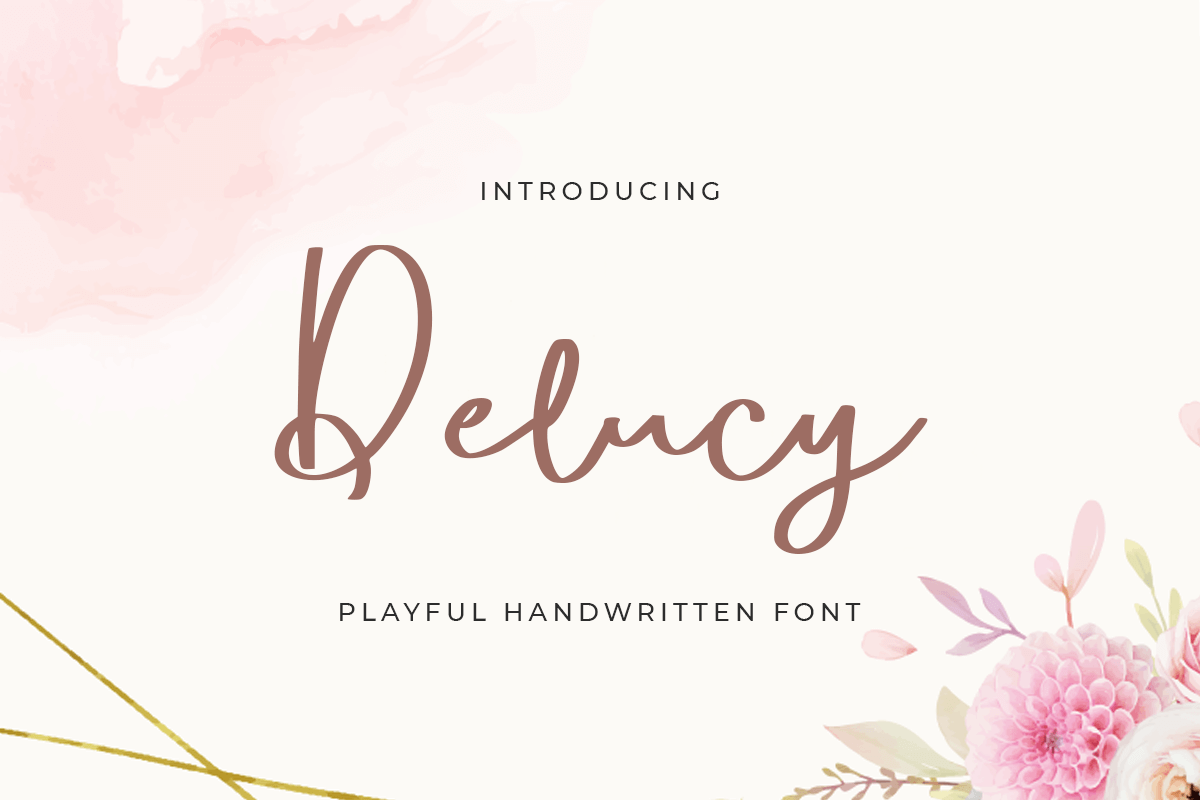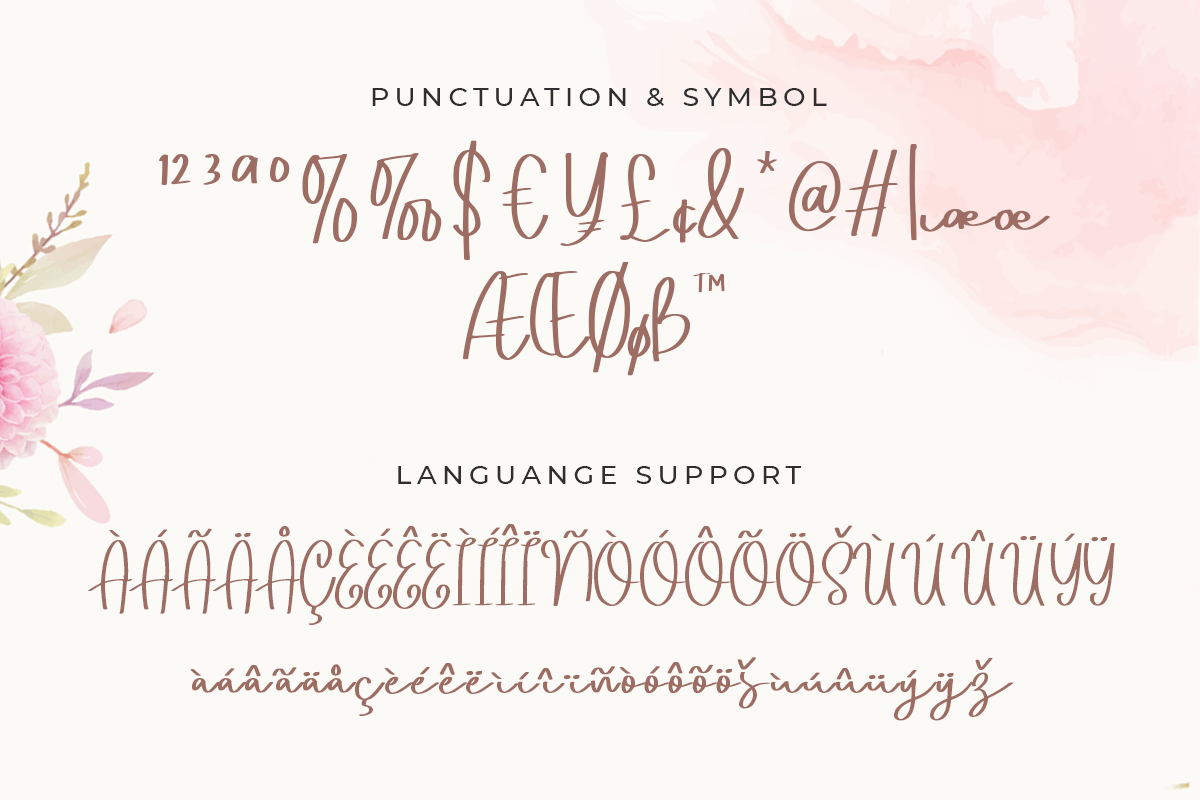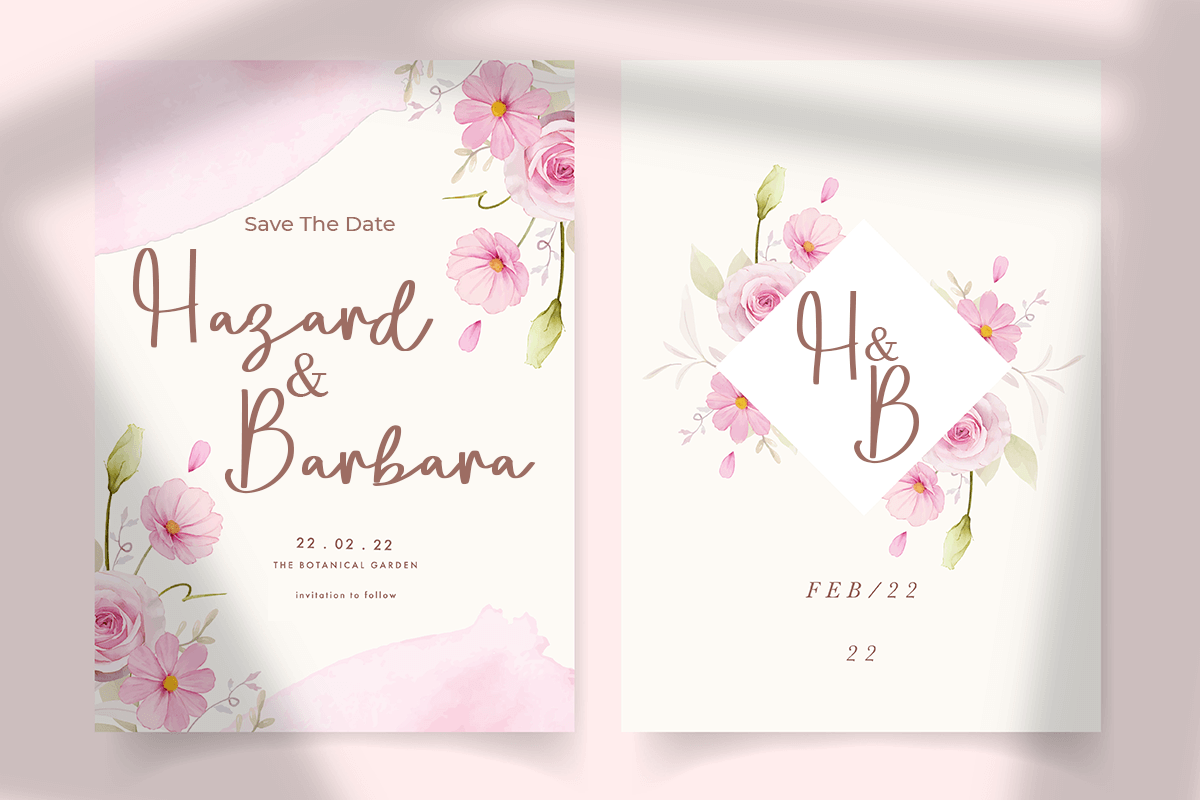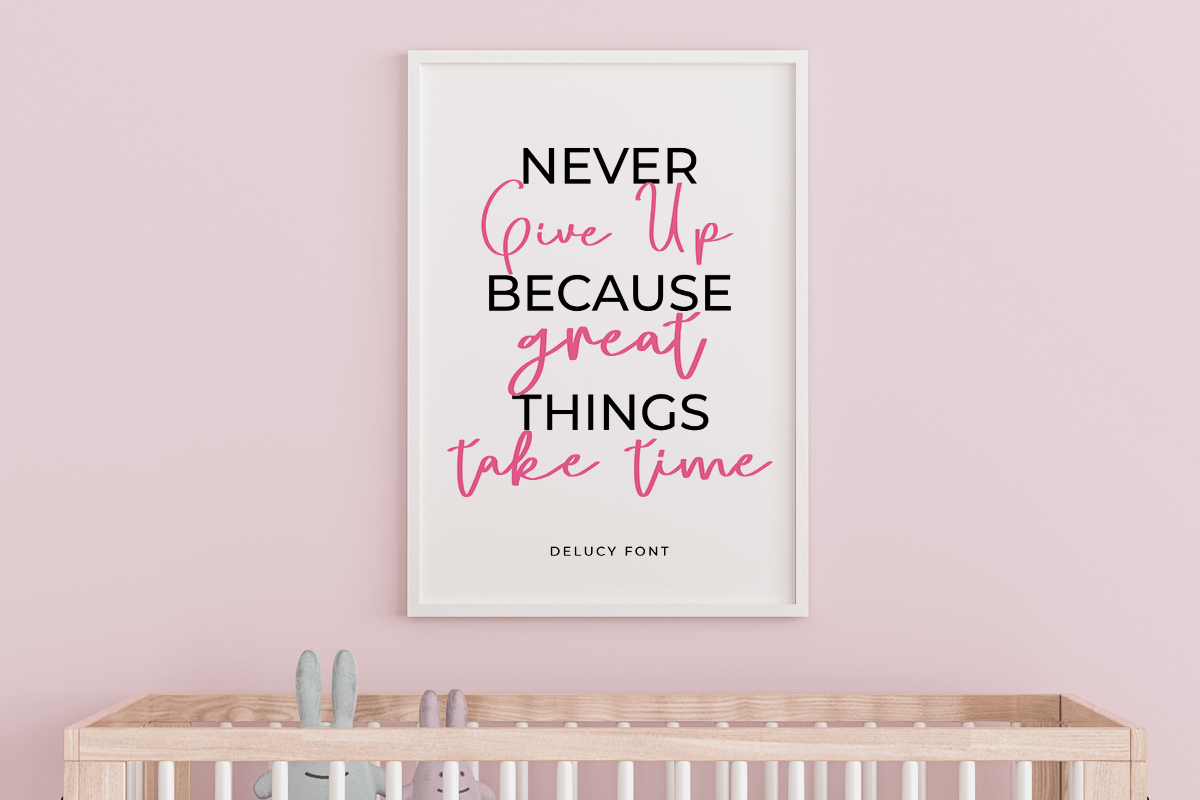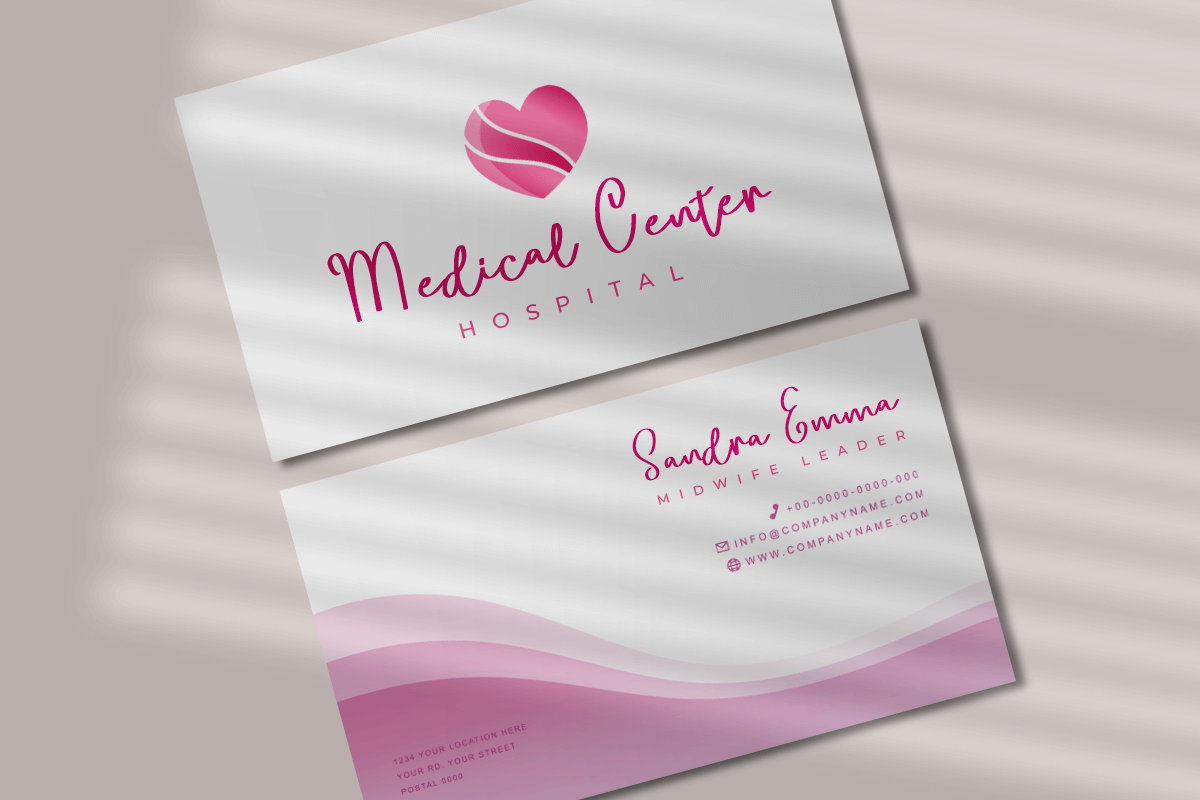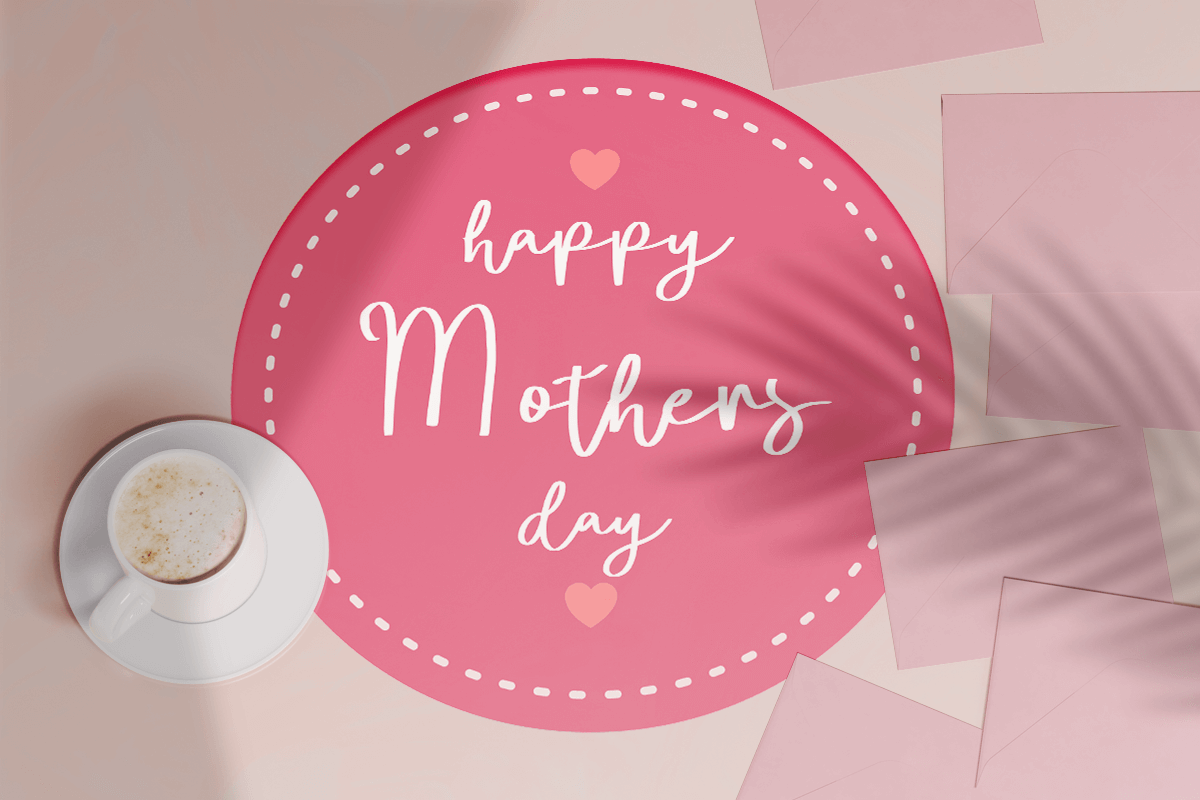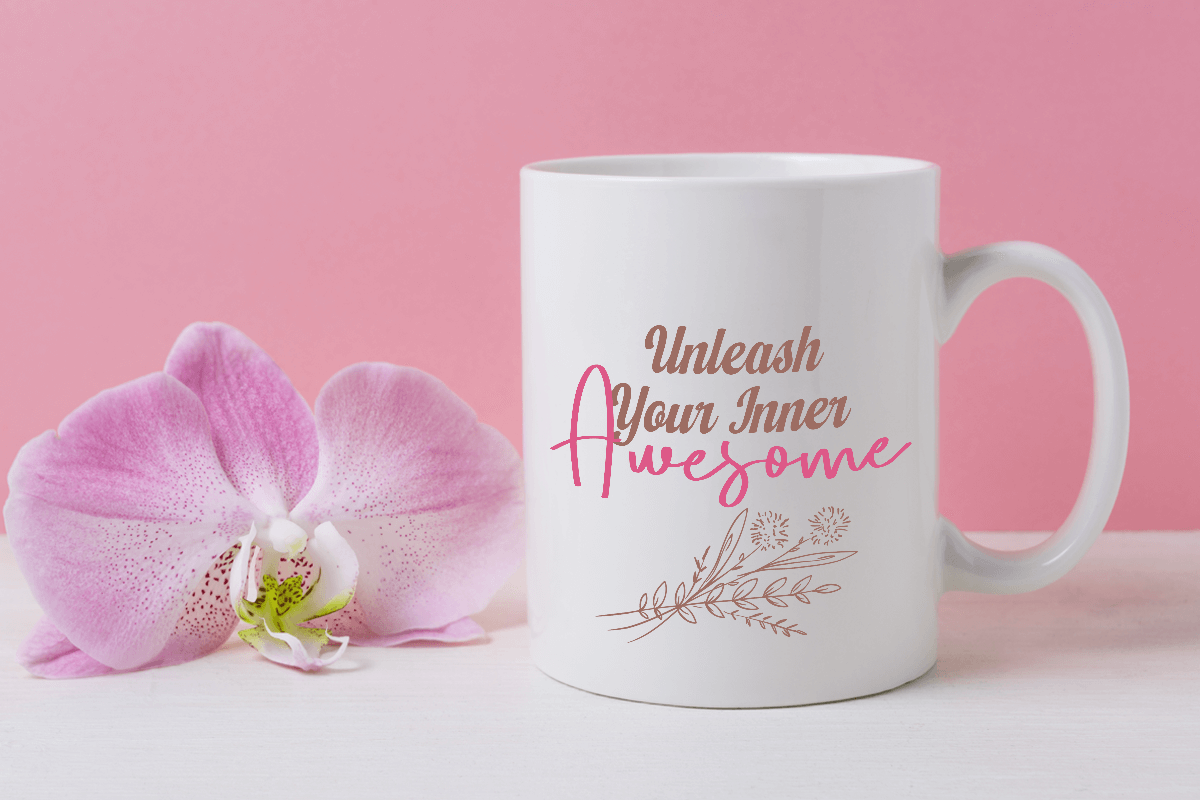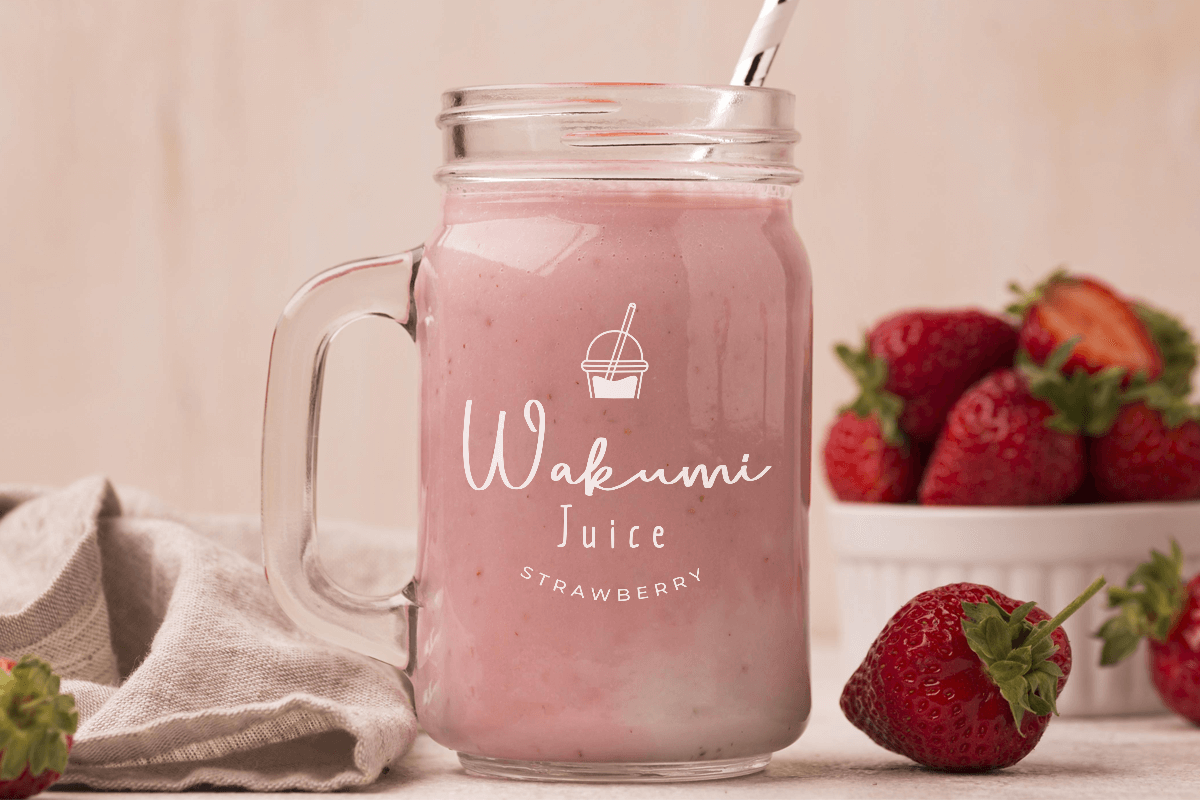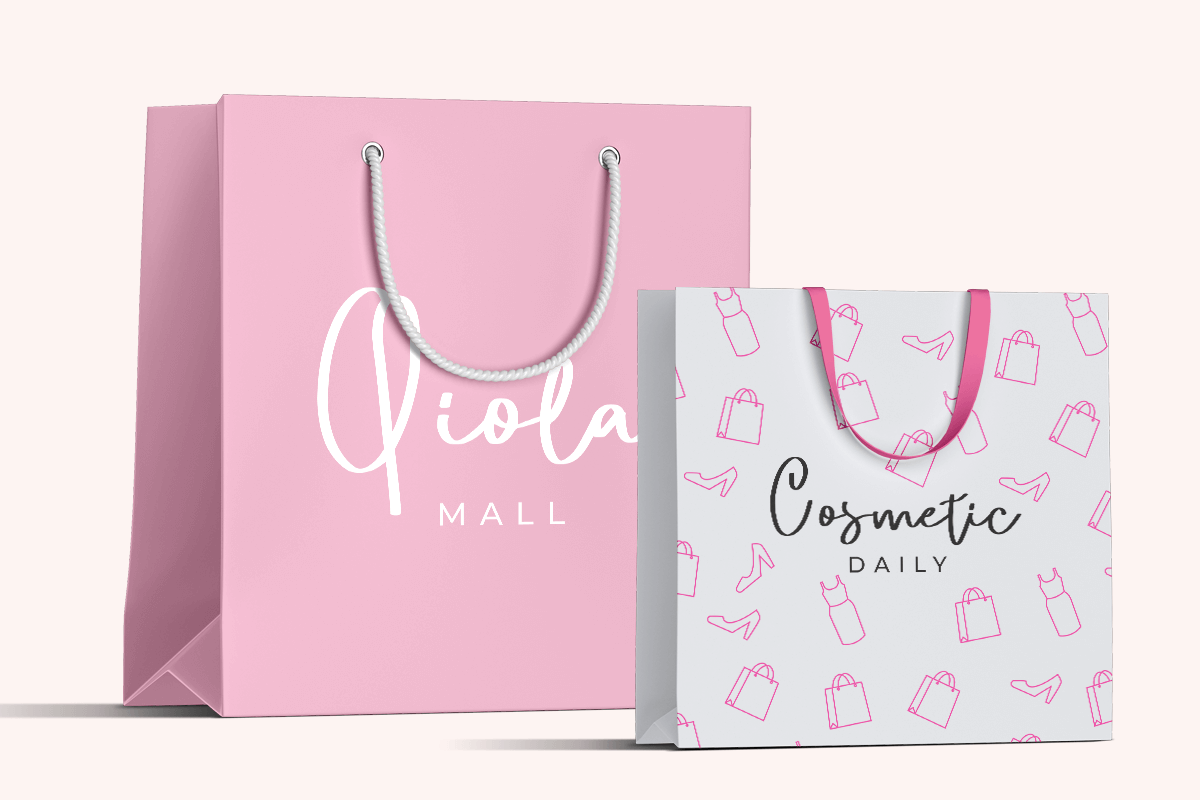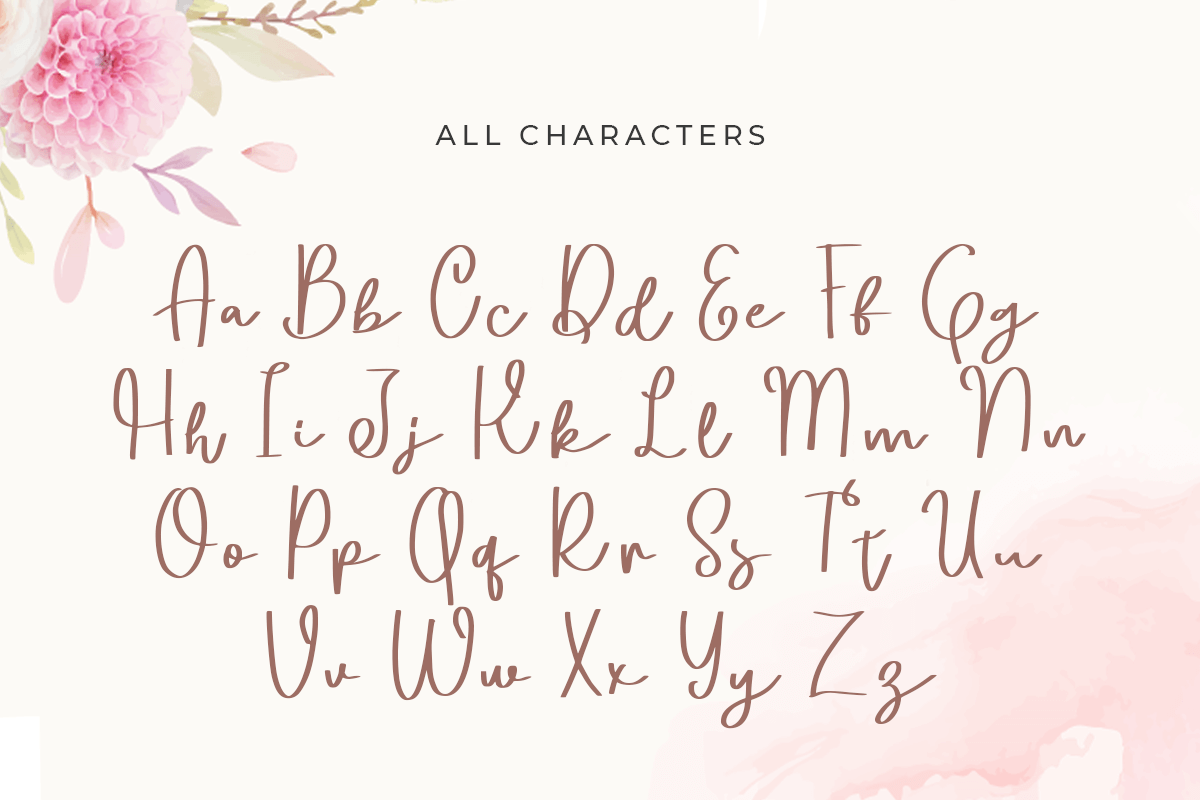
Delucy
-Playful Handwritten Font
Delucy
Delucy is A Playful font with nice and cheerful style and so charming. This font specially crafted for your quotes design projects or cute logo, unique, modern for any designs such as product, merchandise, and so many more with easy to use but unique results are so cute.
Enjoy to Design any your needs with cute, cheerful, and charming feel.